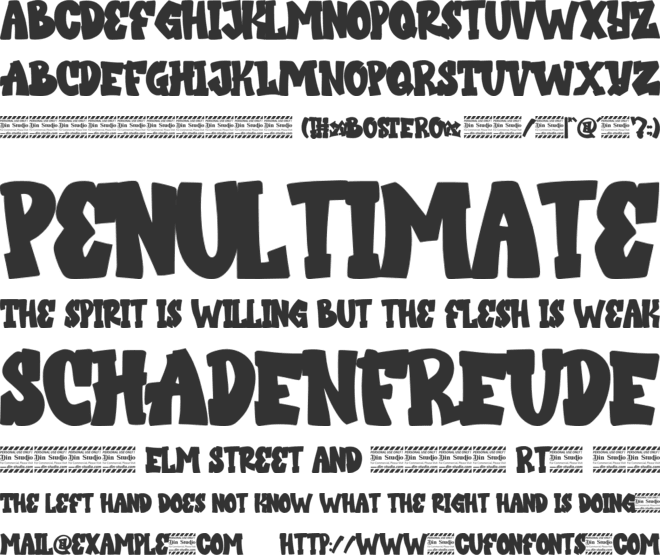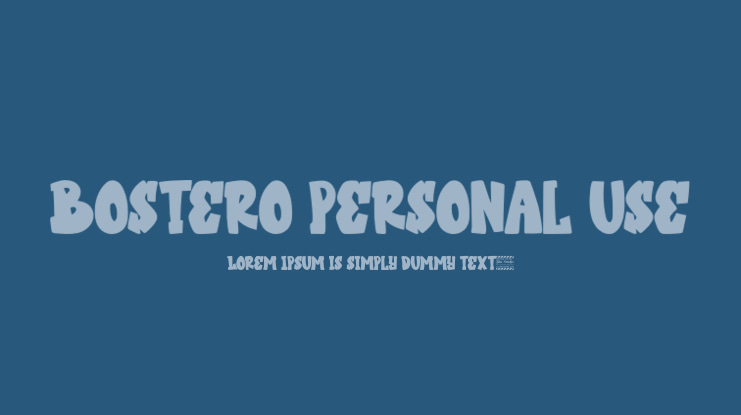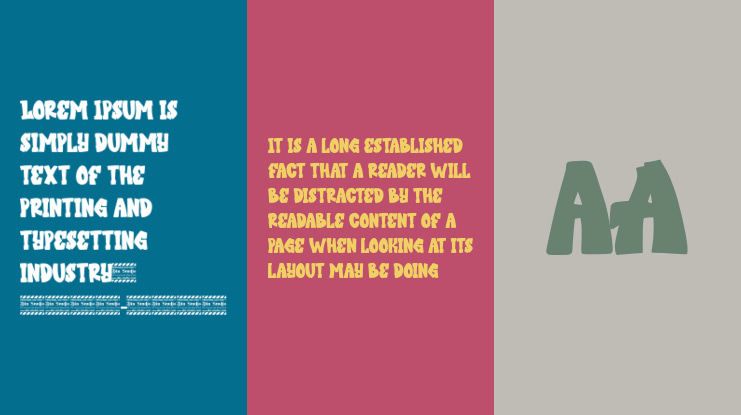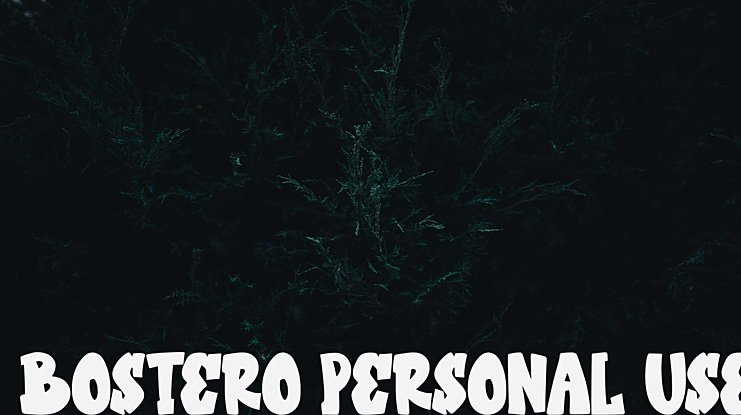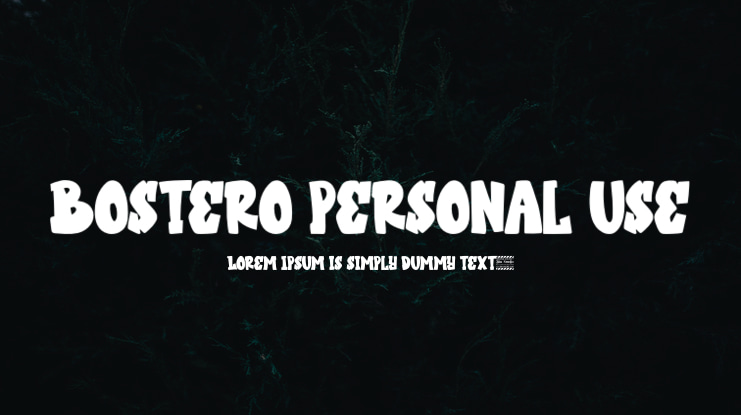
Introducing Bostero- A Grafiti Font
Bostero is a graffiti font style that embodies the urban tagging scene. This stylish font features thick, angular letters, and offers uppercase letters only. With its strong outlines and fat strokes, this is the font you need when you want to create that classic bubble graffiti font look. This font can be used for a host of different content needs and projects. Create gorgeous printed quotes, standout packaging, or beautiful t-shirts! You can even use it to create amazing headings, logos, menus, and social media graphics.